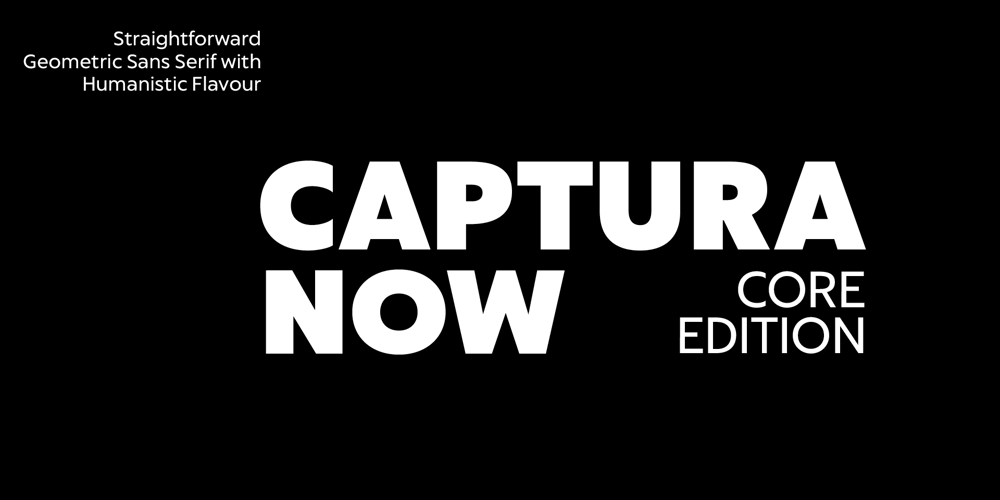
Captura Now Core Edition Font Family was designed by Anita Jürgeleit and published by TypeThis!Studio. Captura Now Core Edition contains 8 styles and family package options. Carefully refined shapes and sensitively balanced spacing and kerning create the gentle rythm that grants Captura its warm-hearted face, perfect in form and shape.www.typethis.studioThis version covers all the essentials of Captura 265 Characters 8 Styles, including Italics Western European Language Support Numbers Symbols Punctuation If you need more features like small caps, special symbols, Cyrillic or Vietnamese language support, you may review the expert version of CapturaNow.